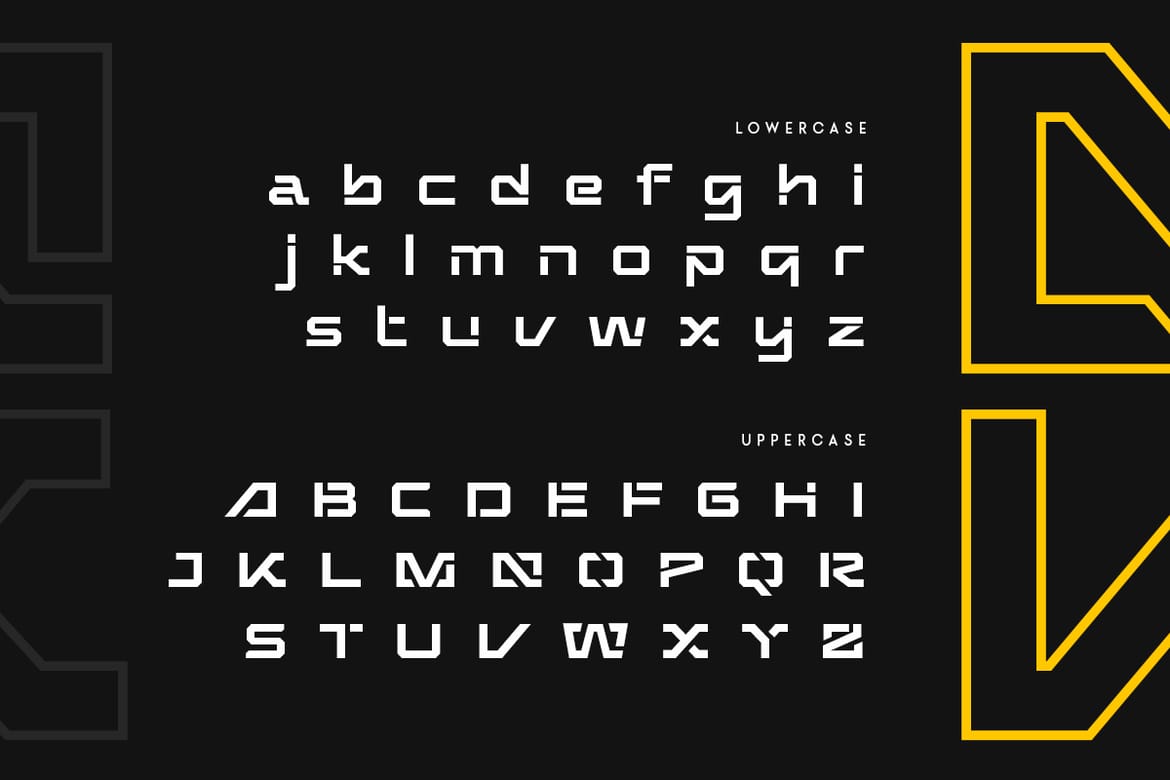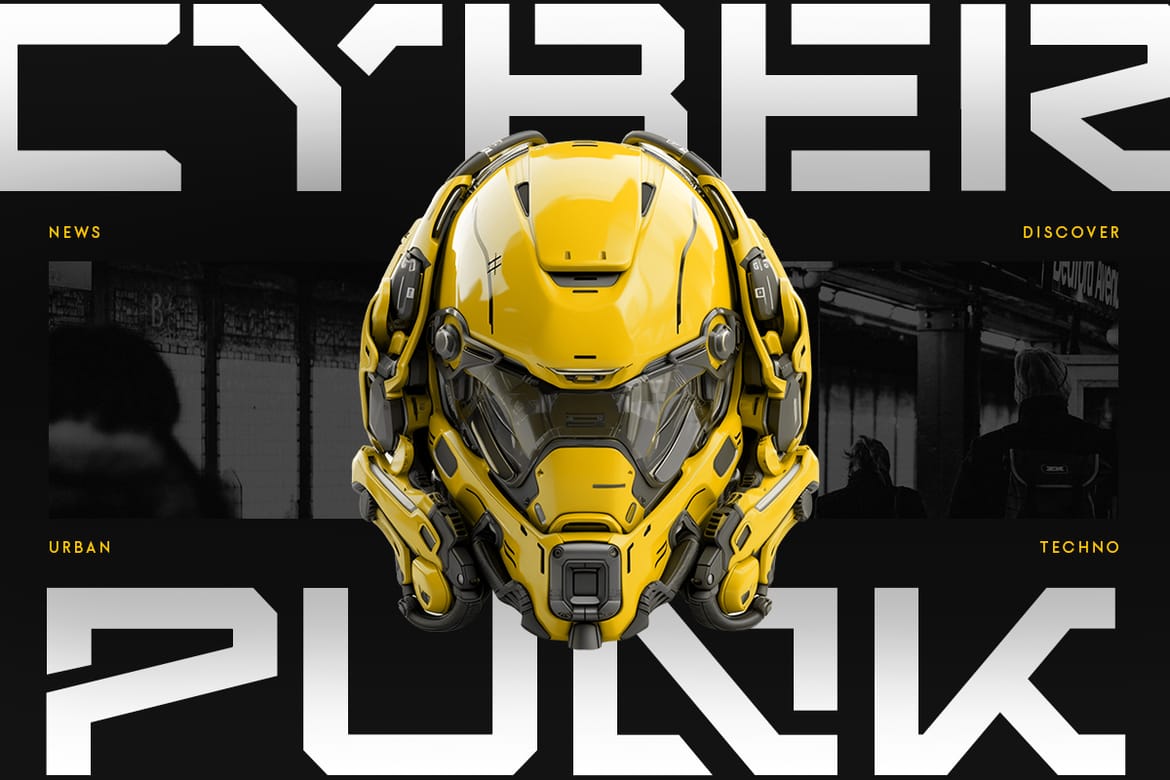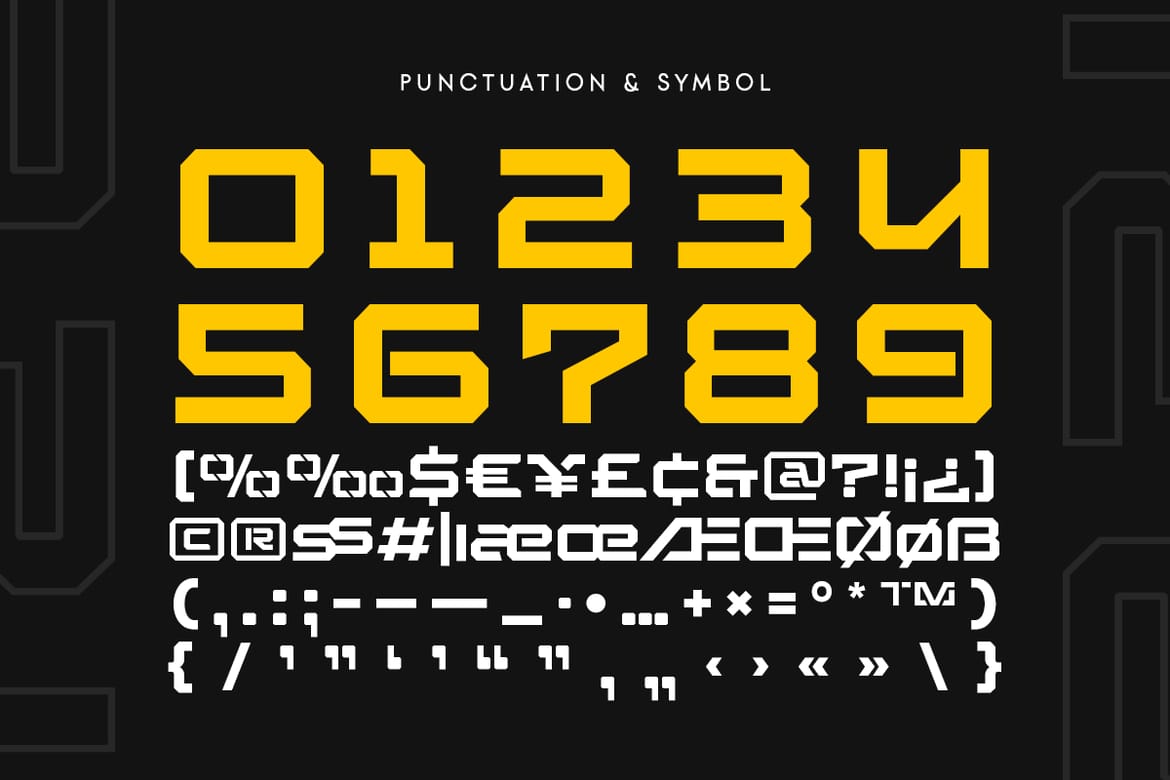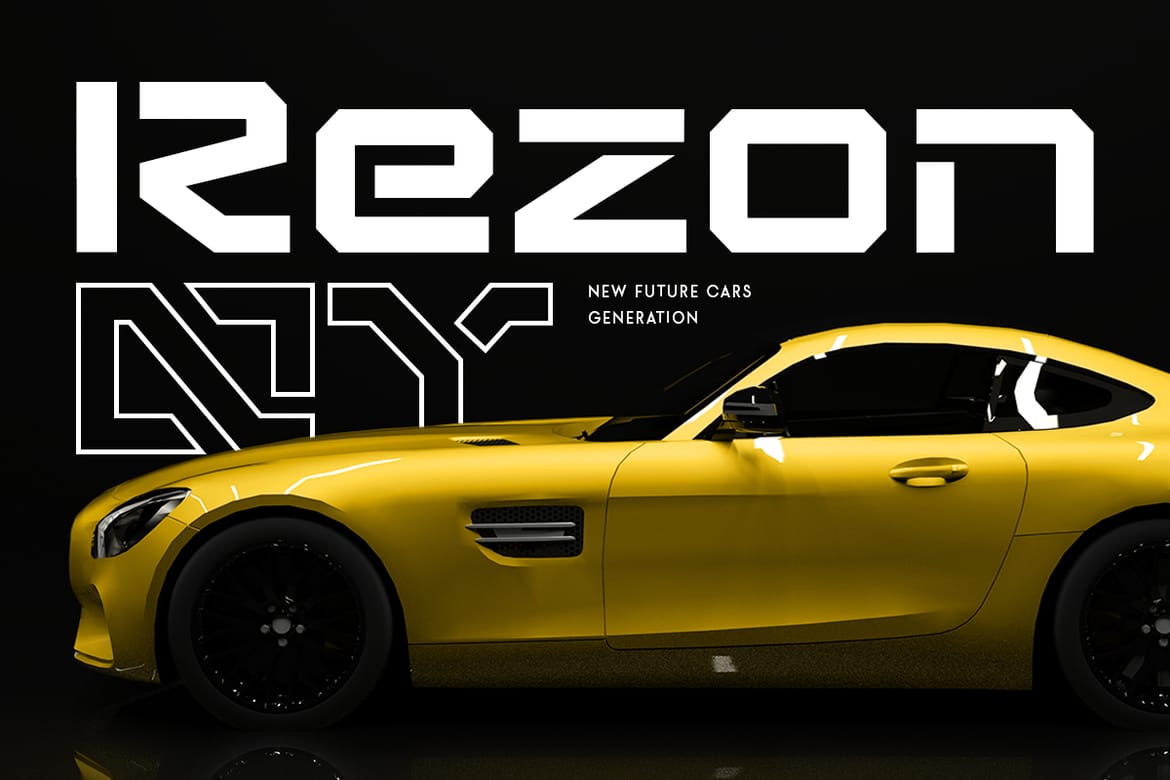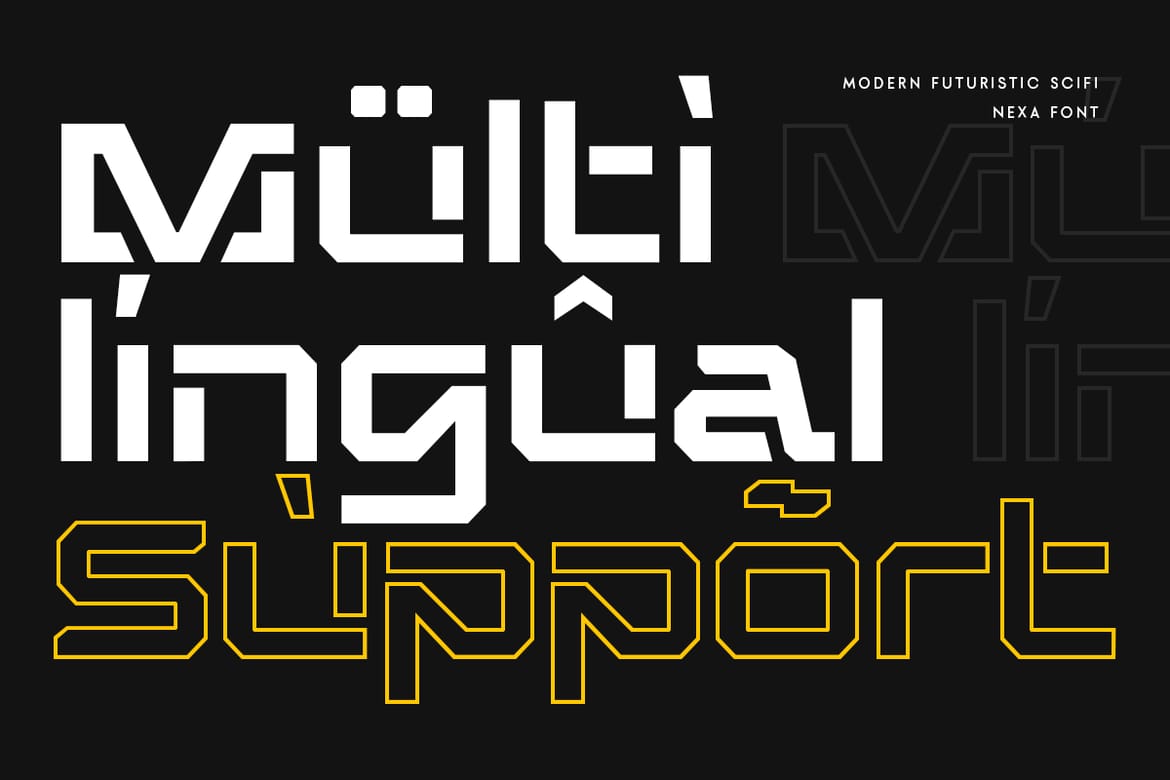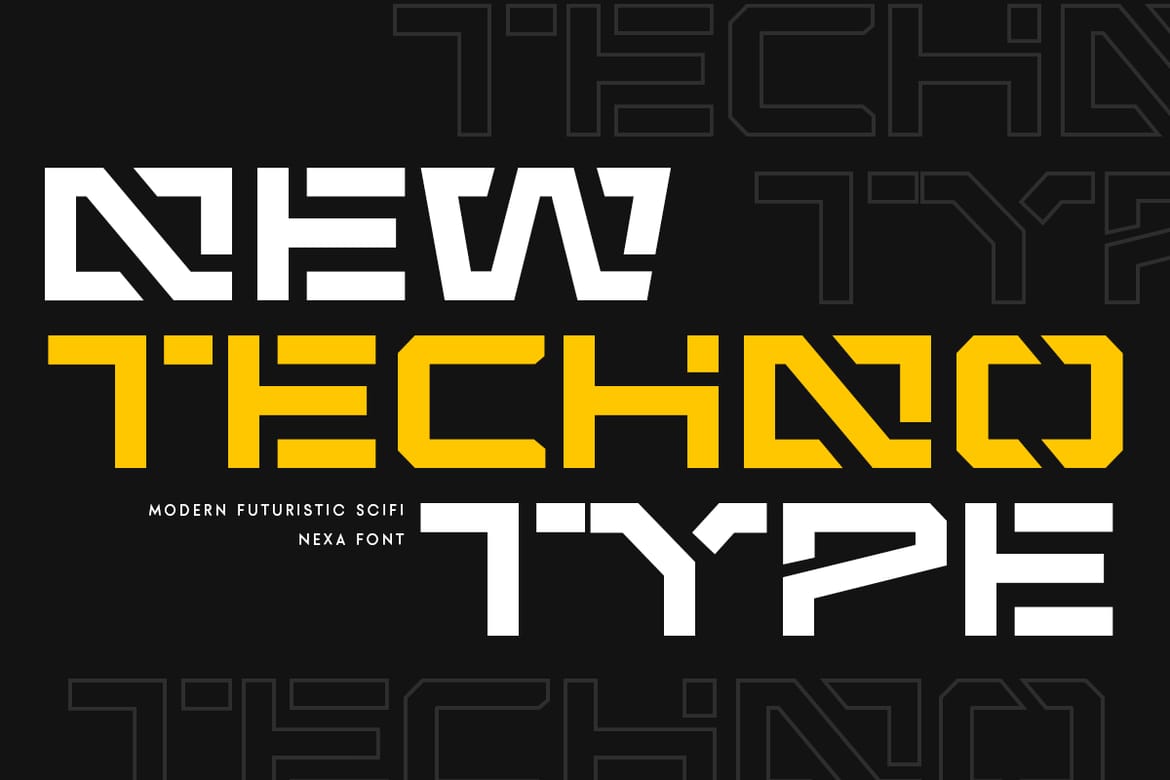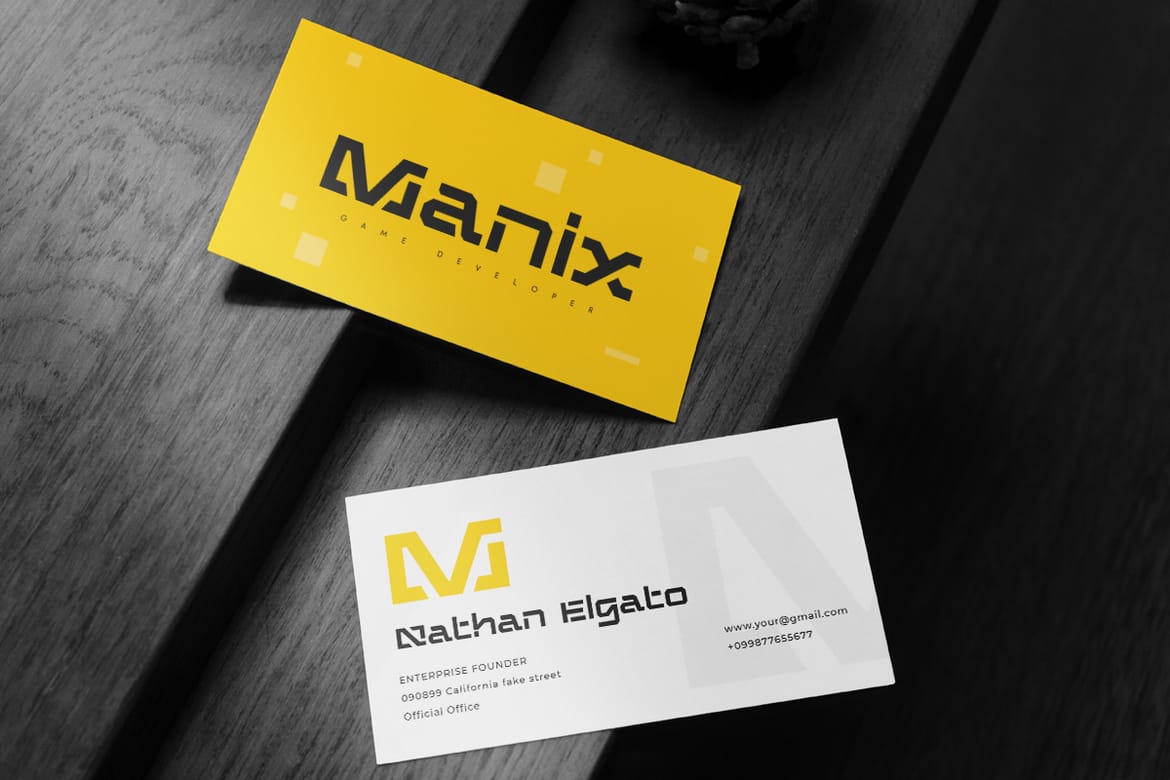
Introducing Nexa, the ultimate font for futuristic and cyberpunk-inspired designs. Perfectly blending sci-fi aesthetics with cutting-edge technology, Nexa is designed to elevate your projects to a new level of modernity and innovation.
Nexa Font Features:
Futuristic Style: Sleek and modern design, ideal for tech and sci-fi themes.
Cyberpunk Appeal: Edgy and dynamic, perfect for cyberpunk-inspired visuals.
Versatile Usage: Great for branding, posters, digital art, UI/UX designs, and more.
Innovative Characters: Unique letterforms that stand out in any design.
High Legibility: Clear and sharp, ensuring readability in both headlines and body text.
Extended Character Set: Supports multiple languages and symbols for global use.
Transform your designs with Nexa, a font that brings the essence of futuristic, cyberpunk, and sci-fi technology to life. Whether you're working on high-tech branding, immersive digital experiences, or sleek modern visuals, Nexa provides the perfect blend of style and functionality. Embrace the future with Nexa and make your designs unforgettable.